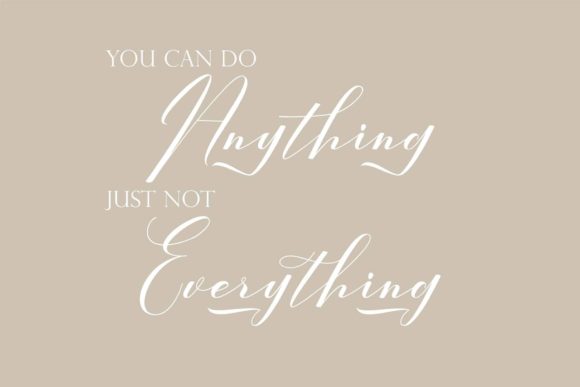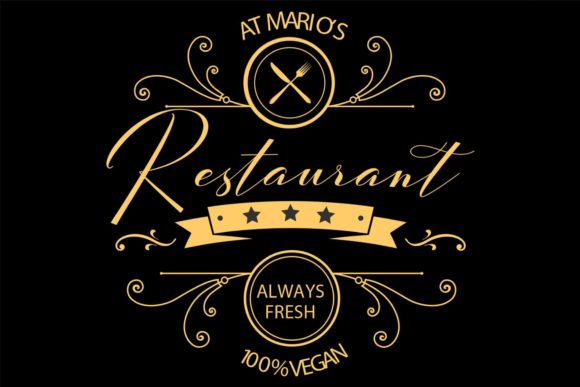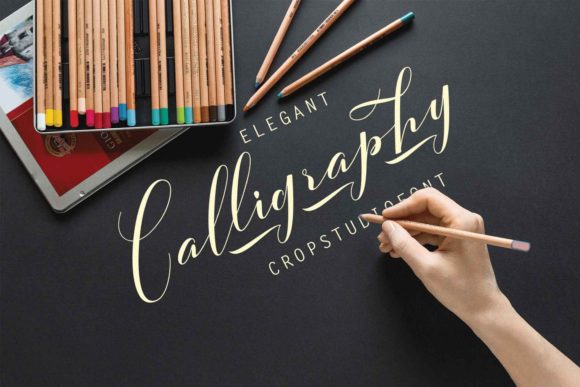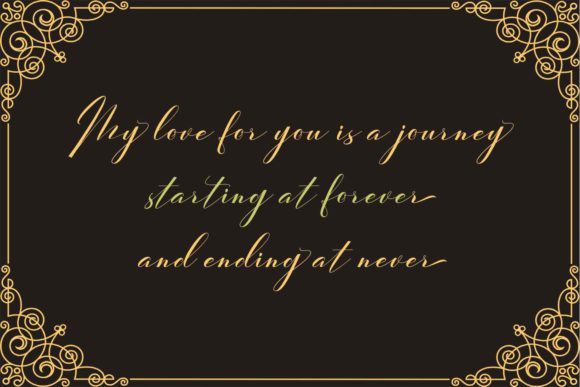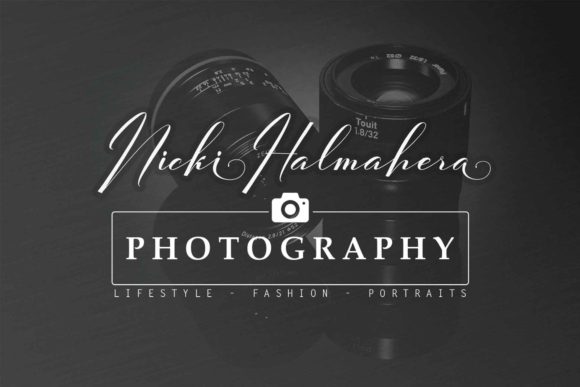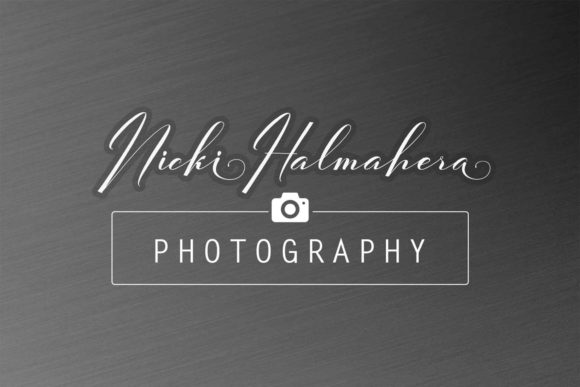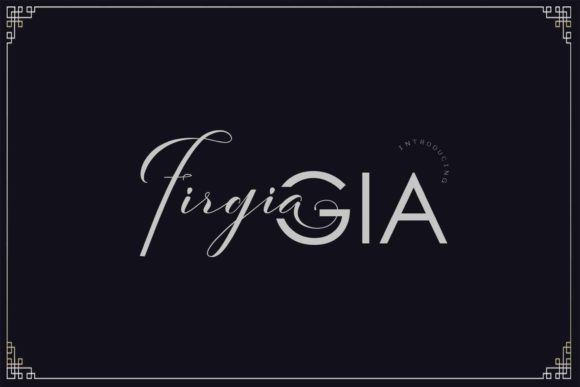
FirgiaGIA Font: Elevate Your Designs with Modern Handwritten Calligraphy
In the world of typography, a good font can make all the difference in creating visually stunning designs. For designers, crafters, and creatives looking for a modern and elegant touch, FirgiaGIA font is an excellent choice. This beautiful, handwritten calligraphy font is designed to add a personal and sophisticated feel to various design projects, from branding and web design to editorial, prints, crafts, and more.
What Makes FirgiaGIA Font Stand Out?
FirgiaGIA is not just another font; it’s a comprehensive design tool that offers a wide range of creative possibilities. Here are some of its standout features:
- Modern Handwritten Calligraphy: FirgiaGIA boasts a contemporary, handwritten calligraphy style that adds a touch of elegance and sophistication to any design.
- Varied Baseline: The font features a varied baseline, which gives it a natural, hand-drawn feel that’s perfect for creating unique and eye-catching typographic designs.
- Smooth Lines and Gorgeous Glyphs: With smooth, flowing lines and a collection of gorgeous glyphs, FirgiaGIA allows designers to create stunning text arrangements that capture attention.
- Stunning Alternatives: The font comes with beautiful alternative characters, providing flexibility and creativity in design.
The hand-drawn design elements of FirgiaGIA make it incredibly versatile. Here are some of the many ways you can use this fantastic font:
- Branding: Create memorable brand logos, wordmarks, and taglines that stand out.
- Web Design: Enhance your website’s typography with a modern, elegant font that engages visitors.
- Editorial: Use FirgiaGIA for magazine headers, article titles, and quotes to add a touch of class.
- Prints: Perfect for posters, flyers, brochures, and any printed materials that require a distinctive look.
- Crafts: Ideal for crafters who want to add a personal touch to their projects, such as handmade cards, invitations, and DIY decor.
- Quotes: Create inspiring quote graphics for social media, blogs, or personal projects.
Bring Your Creative Ideas to Life
With FirgiaGIA, the possibilities are endless. Whether you’re a professional designer or a crafting enthusiast, this font can help you bring your most creative ideas to life. Its unique blend of modern calligraphy and hand-drawn charm makes it an invaluable addition to your design toolkit.